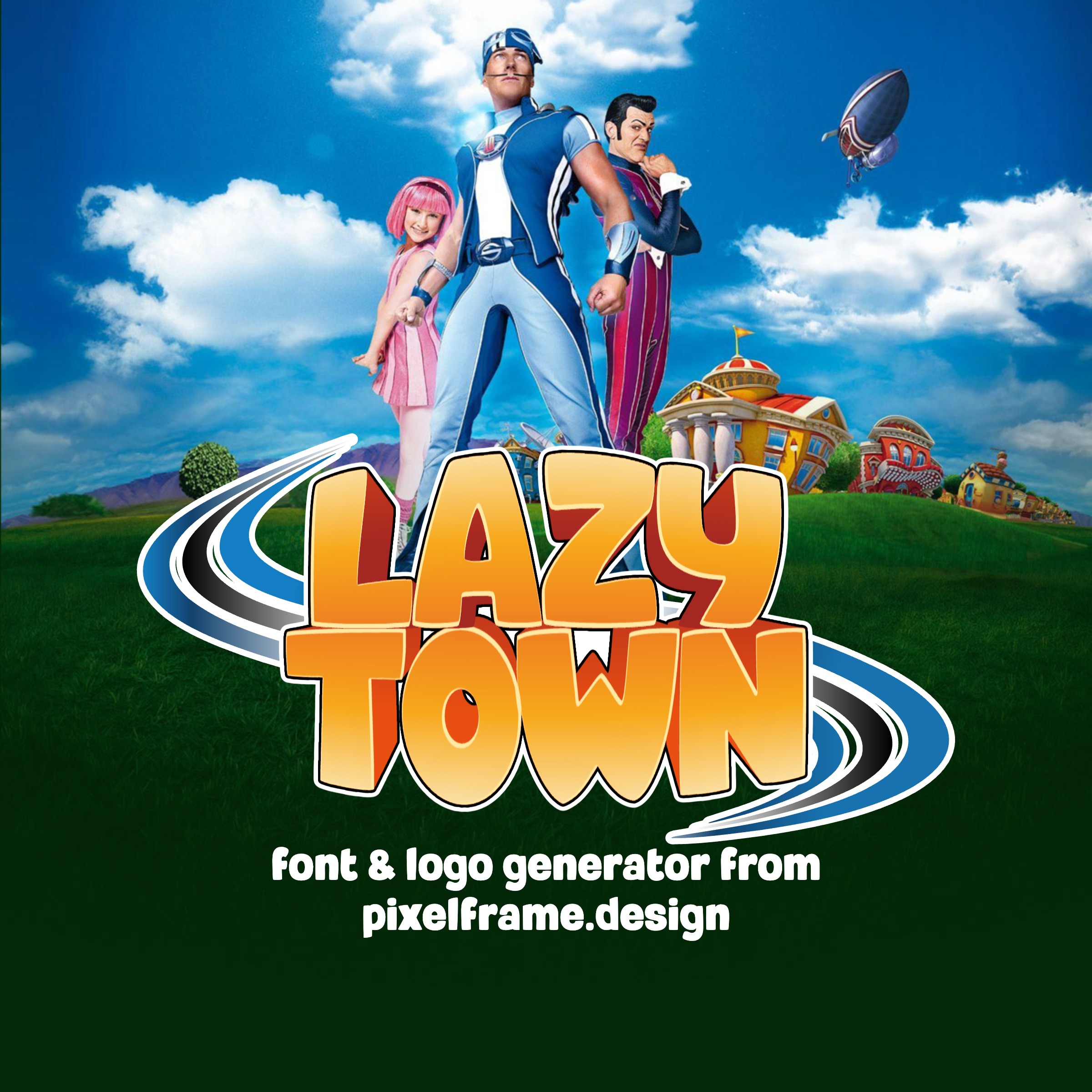
Relive your Childhood with the LazyTown Logo & Font Generator!
LazyTown originally premiered in Iceland, but you’re probably more familiar with it from Nickelodeon if you grew up in the 2000’s in the US, where it aired in the same era as classics like SpongeBob Squarepants. This custom generator recreates the styling of the most modern iteration of the logo – complete with bulging distorted letterforms, swirl shape effects, and multiple background options to select from.
The two stacked lines of orange lettering seem to strain outward against their own outline, each letter swelling like it is being viewed through a fisheye lens, with a small blue flourish caught mid-motion behind them. It's a deliberately physical piece of type design — built to look like it is pushing against the edges of its own signage — and it has stayed instantly recognizable since the show's debut in the early 2000s.
This generator recreates that bulging, extruded look with several rendering passes composited together to produce the final result. Before getting into the history and design of the LazyTown logo, here is a breakdown of exactly how that rendering works — each visual effect shown in isolation, then stacked together step by step.
How the LazyTown Logo Generator works: layer-by-layer breakdown
Six distinct rendering passes stack on top of each other. Each sample below renders live in your browser using the same font and drawing code as the generator, shown here transforming the word 'LAZY'.
Layer 1: 3D depth extrusion
The first pass builds the illusion of thickness. Each letter is stamped dozens of times at slightly shrinking sizes, drifting inward toward a single vanishing point, so the copies read as a continuous extrusion receding backward rather than a stack of flat duplicates. A vertical gradient — bright orange-red at the top fading to a deep rust at the base — colors that depth, so the letters already look three-dimensional before any face color is even added on top.
Layer 2: Gradient face fill
The second pass fills the front-facing surface of each letter with its own vertical gradient — pale cream at the top, warm gold in the middle, deep orange at the base. This is the primary color statement of the logo, and combined with the depth layer beneath it, the letters immediately read as lit, rounded, physical objects rather than flat type.
Layer 3: Rim-light highlight
The third pass adds a thin sliver of light cream along one edge of each letter. It is built by filling the letterforms twice — once at their true position as a mask, once offset by a fraction of a pixel with only a thin stroke — and keeping only the part of the offset stroke that overlaps the original shape. The result is a delicate rim-light accent along a single edge, the kind of detail that separates a letter that looks gently rounded from one that reads as flat.
Layer 4: Vertical bloat
This is where the letters start to bulge. The composited artwork from the first three passes is redrawn one thin vertical strip at a time, and each strip's height is stretched by an amount that depends on how close it sits to the horizontal center of the word — strips near the middle grow the most, strips near the outer edges barely move. The effect reads as the whole word swelling outward from its center, exactly like the original LazyTown wordmark appears to press against its own silhouette.
Layer 5: Horizontal squeeze
A companion pass can pinch the sides of the whole word inward or push them outward, scaled uniformly around the word's own center. On the live generator this sits close to a neutral value by default, but the same mechanism is what lets the two lines of a finished logo flare to slightly different widths. It is shown here at a more pronounced setting so the pinch is easy to see.
Layer 6: Black outline
The final pass traces a clean black border around the entire composited shape from the passes above — extrusion, face, highlight, bloat, and squeeze all included. Rather than stroking each letter individually, the whole silhouette is stamped dozens of times in a ring of directions at a small radius, and the union of those stamps reads as one continuous outline that follows the true bulged shape, edges and all.
The six passes together — depth extrusion, face gradient, rim-light highlight, vertical bloat, horizontal squeeze, black outline — produce the final result. The generator's actual output goes a step further: two lines of text are anchored so their bulging edges meet without a gap, a blue swirl flourish sits behind the whole group sized to its exact width, and everything scales down automatically if it would otherwise run past the edge of the canvas. Remove any single layer from the sequence above and the letters read as noticeably flatter or less convincing.
The LazyTown phenomenon
LazyTown began as a stage production in Iceland before becoming a full television series in 2004, created by former gymnast Magnús Scheving, who also played the athletic, blue-suited hero Sportacus. The show followed the residents of a sleepy town whose habits were nudged toward exercise and vegetables by Sportacus's arrival, opposed at every turn by the scheming, disguise-obsessed villain Robbie Rotten, played by Icelandic actor Stefán Karl Stefánsson. Puppetry combined with live-action performers gave the show a distinctive look that set it apart from most children's programming of its era.